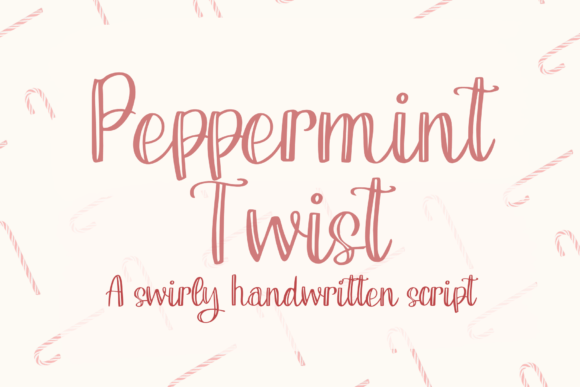
Peppermint Twist Font
Peppermint Twist is a sweet, swirly, handwritten script font. Perfect for holiday decor, greeting cards, t-shirt design, stickers, social media, and any craft or project.